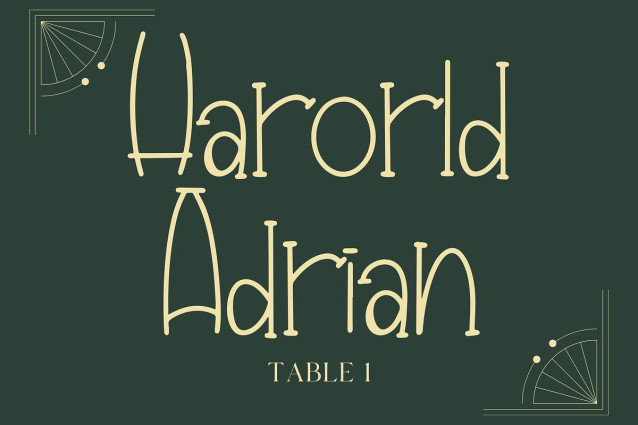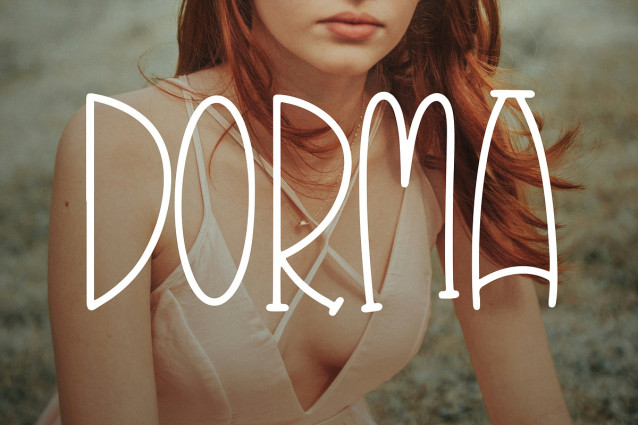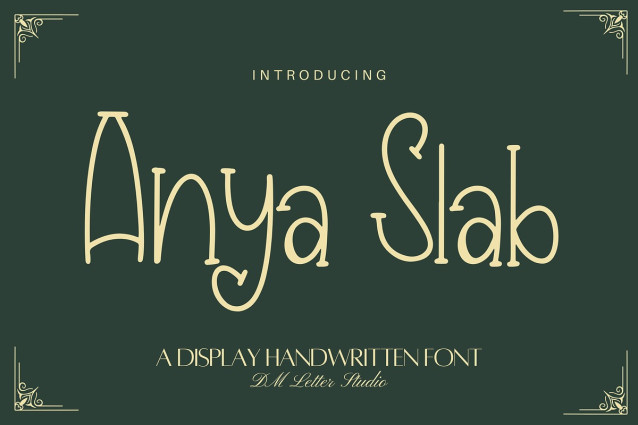
Anya Slab Font
Anya Slab Font is a modern slab serif font with a confident, friendly voice. It blends sturdy serifs with clean curves, so your text feels premium but still easy to read. Because the letterforms stay balanced and open, Anya Slab works beautifully at small sizes for body text and at larger sizes for headlines. Use it for branding, packaging, editorial layouts, product labels, café menus, websites, and logo wordmarks. As a result, your designs look polished and trustworthy without feeling stiff.
Fast layouts with the Anya Slab font
Start with Anya Slab for the headline or brand name. After that, add a clean sans for supporting text like ingredients, dates, or pricing. Because slab serifs love contrast, keep your hierarchy clear by using fewer weights and stronger size changes. In addition, try simple shapes like rules, badges, and frames to match the structured look. Finally, save palette pairs like charcoal & cream, navy & ivory, cocoa & beige, or forest & pearl to repeat across your product line.
| Designer Name: | Dm Studio |